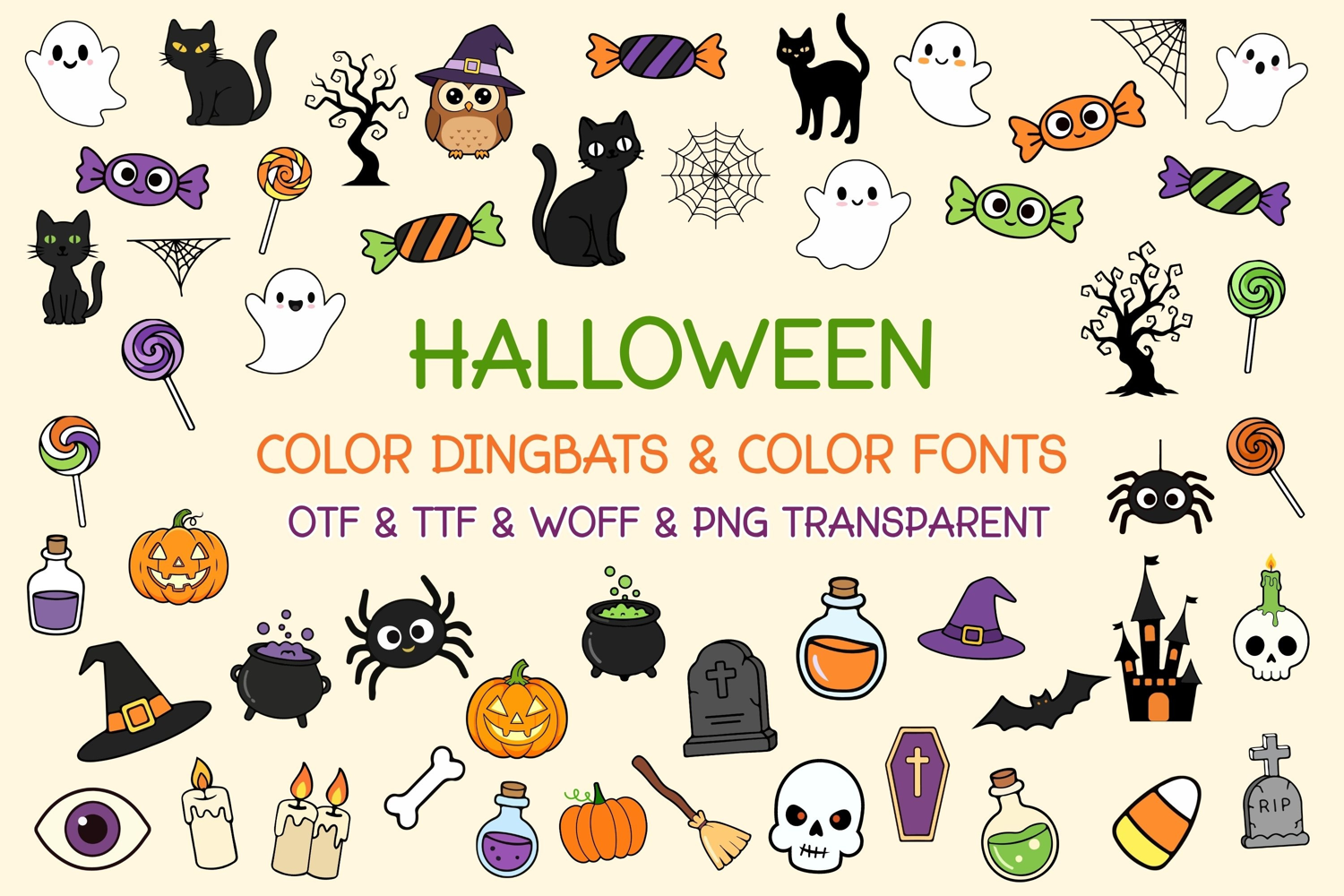
Halloween Color dingbats & Color fonts
Meet Halloween Doodle, a Dingbats font intricately designed to inject the Halloween spirit into your creations. This endearingly crafted, color-rich, spooky-themed font is your secret ingredient to transform ordinary into extraordinary effortlessly. From crafting gorgeous invitations to burst onto the scene with striking social media posts, from designing charming greeting cards to adding a flavor of creativity to your projects, Halloween Doodle is versatile. Every stroke of this font noticeably amplifies the visual allure of your endeavors, making them stand out. Experience the whiff of Halloween with every letter of the Halloween Doodle font.